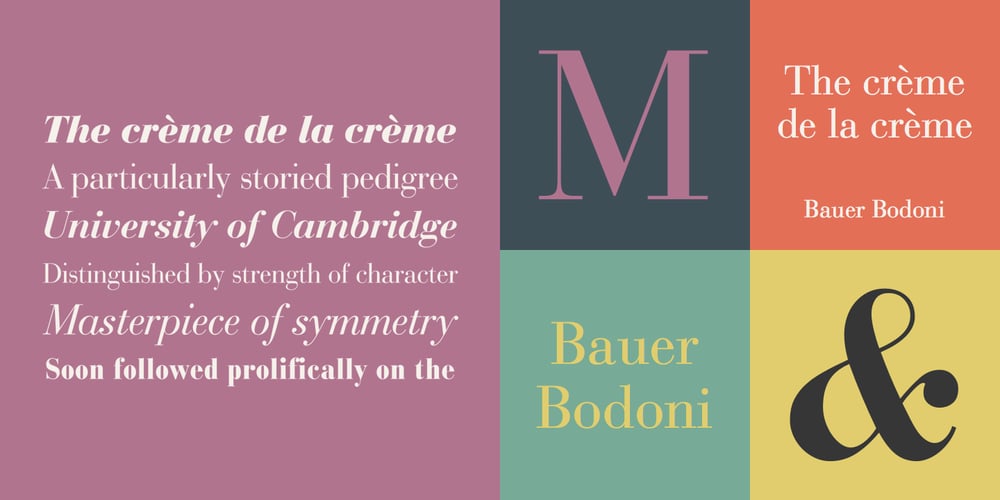
Bauer Bodoni Font Family was designed by Giambattista Bodoni, Heinrich Jost and published by Linotype. Bauer Bodoni contains 8 styles and family package options. Giambattista Bodoni (1740-1813) was called the King of Printers; he was a prolific type designer, a masterful engraver of punches and the most widely admired printer of his time. His books and typefaces were created during the 45 years he was the director of the fine press and publishing house of the Duke of Parma in Italy. He produced the best of what are known as “modern” style types, basing them on the finest writing of his time. Modern types represented the ultimate typographic development of the late eighteenth and early nineteenth centuries. They have characteristics quite different from the types that preceded them; such as extreme vertical stress, fine hairlines contrasted by bold main strokes, and very subtle, almost non-existent bracketing of sharply defined hairline serifs. Bodoni saw this style as beautiful and harmonious-the natural result of writing done with a well-cut pen, and the look was fashionable and admired. Other punchcutters, such as the Didot family (1689-1853) in France, and J. E. Walbaum (1768-1839) in Germany made their own versions of the modern faces. Even though some nineteenth century critics turned up their noses and called such types shattering and chilly, today the Bodoni moderns are seen in much the same light as they were in his own time. When used with care, the Bodoni types are both romantic and elegant, with a presence that adds tasteful sparkle to headlines and advertising. The Bauer Bodoni was done by Heinrich Jost for Bauer Typefoundry in 1927. This version has finer details of the original Bodoni types. It works well for headlines, logos, advertising.